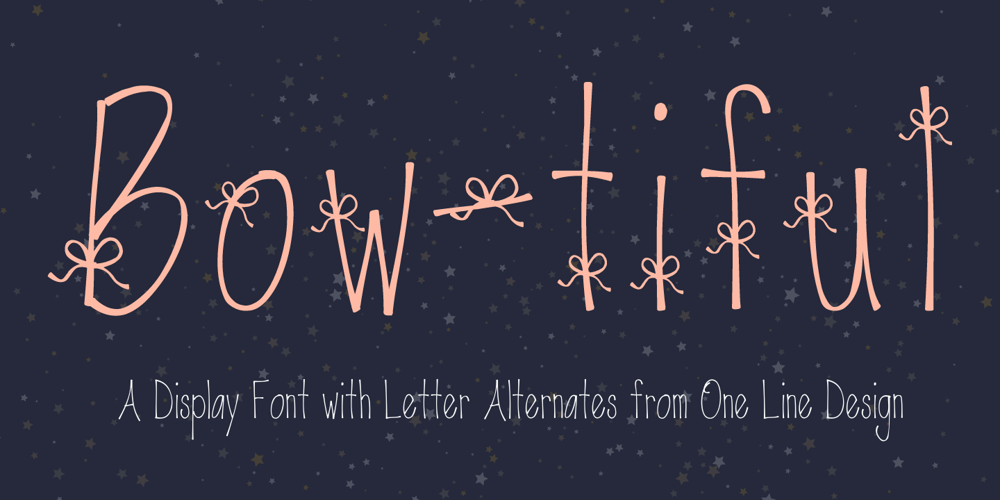
Be Bowtiful Font Family was designed by Brenna Ricci and published by One Line Design. Be Bowtiful contains 1 styles and family package options. Wrap it up by adding a little sweetness to your words. This is an addition to the Be Me font family, to give it a little flair and charm. Doll up announcements, posters and so much more. Letter alternates available so the placement of the bow is perfect for your word/s. Includes: Basic Latin Latin- 1 Supplement Latin extended-A Latin extended-B